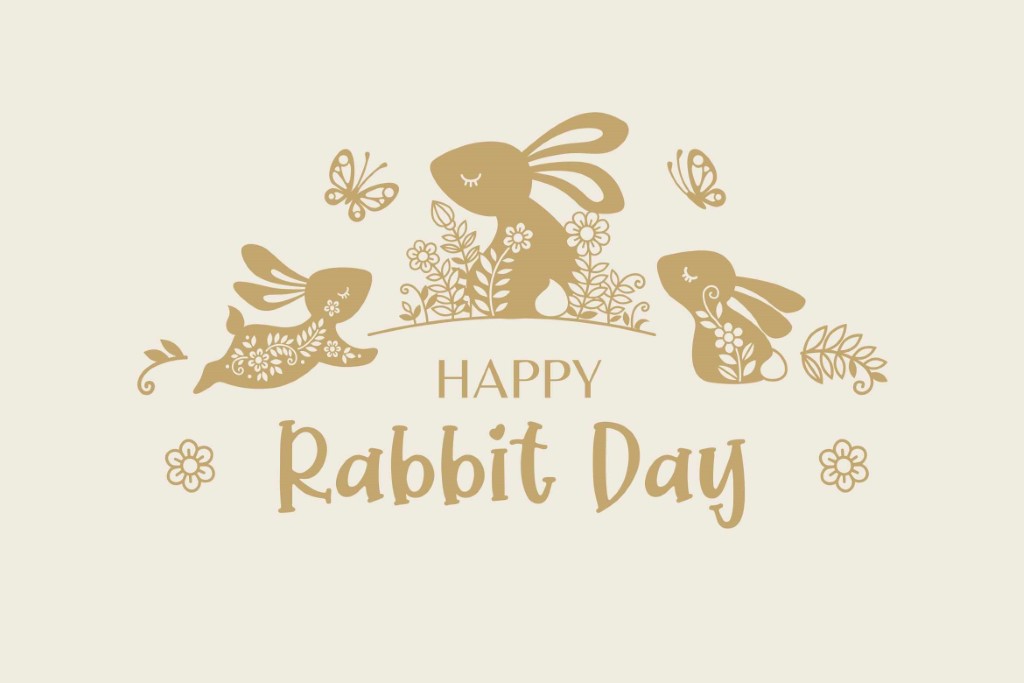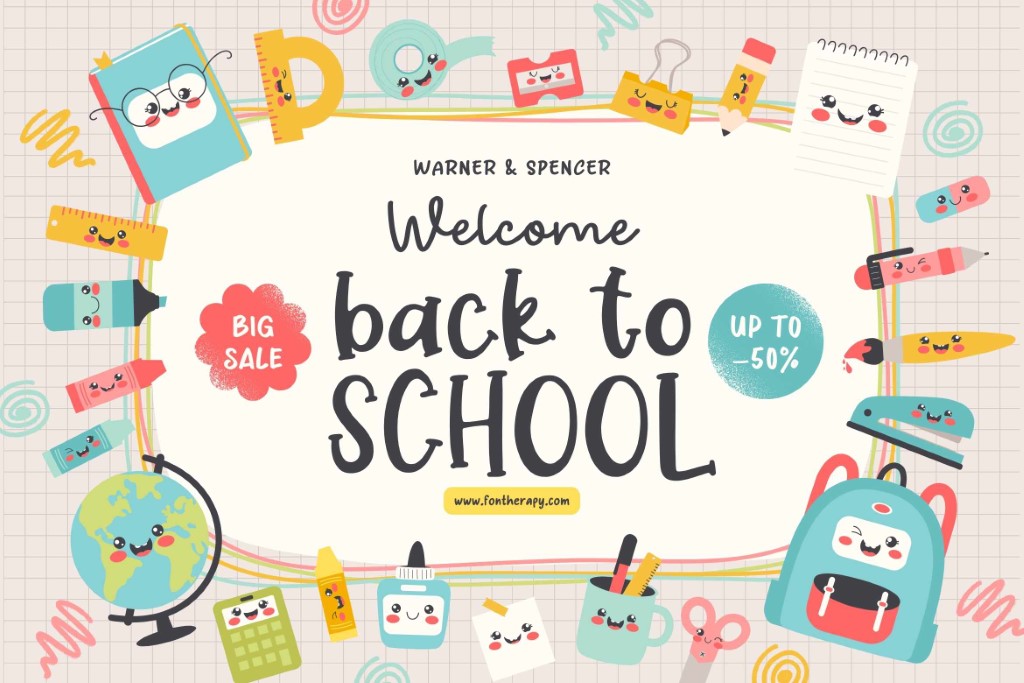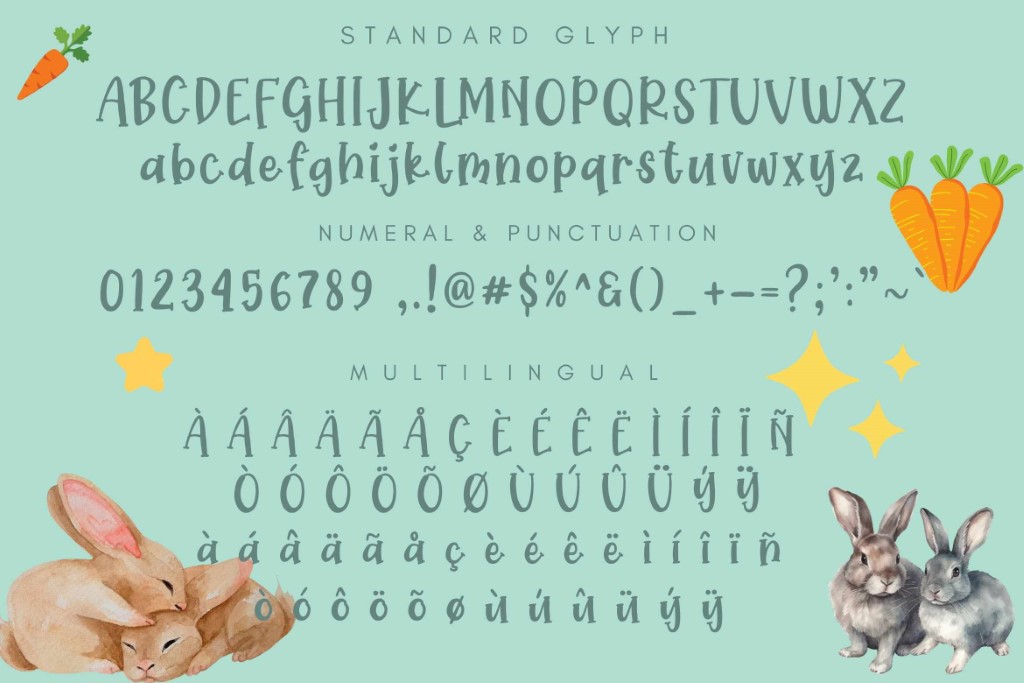
Happy Bounce
Happy Bounce is a delightful and whimsical display font designed to bring joy and charm to any project. Its playful, hand-drawn style makes it versatile and perfect for designs aimed at children or projects that evoke a sense of fun and innocence. The rounded, bouncy characters create a friendly and approachable vibe, ideal for capturing attention while maintaining a lighthearted tone.
Key Features:
• Playful and Fun: The font’s energetic and lively style makes it suitable for cheerful and vibrant themes.
• Hand-Drawn Aesthetic: Adds a personal, handmade feel to your designs.
• Versatile Application: Ideal for various creative projects, including:
• Kids’ products and designs
• School materials and projects
• Food branding and packaging
• Animal-related content
• Cute and playful logos
• Social media posts with a fun and approachable tone
• Storybooks and children’s content
Happy Bounce pairs well with bright colors, playful illustrations, and cheerful visuals, making it a go-to choice for designs that aim to spread happiness and positivity. Its versatility and charm make it a must-have font for creative projects with a youthful and fun appeal.